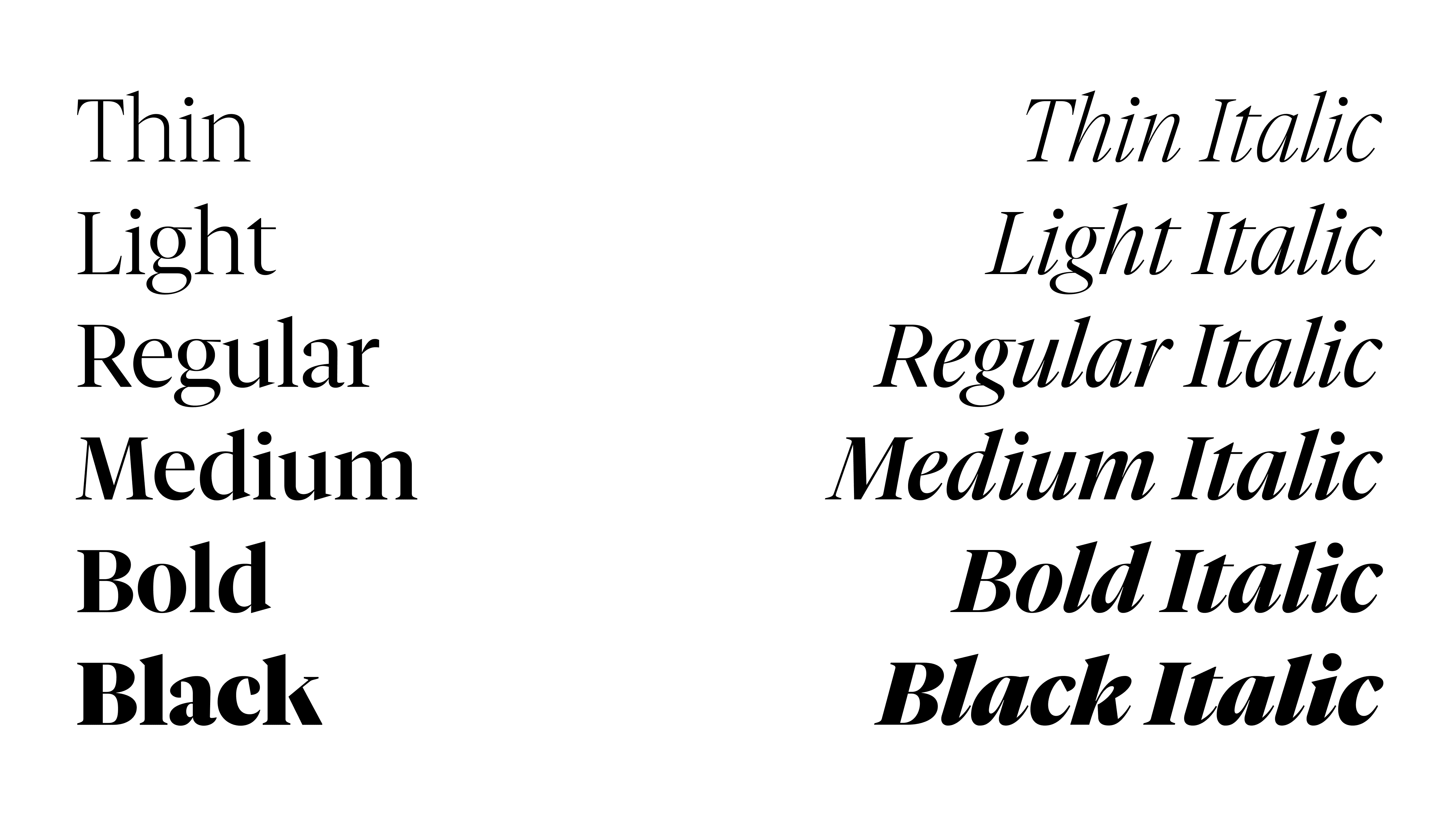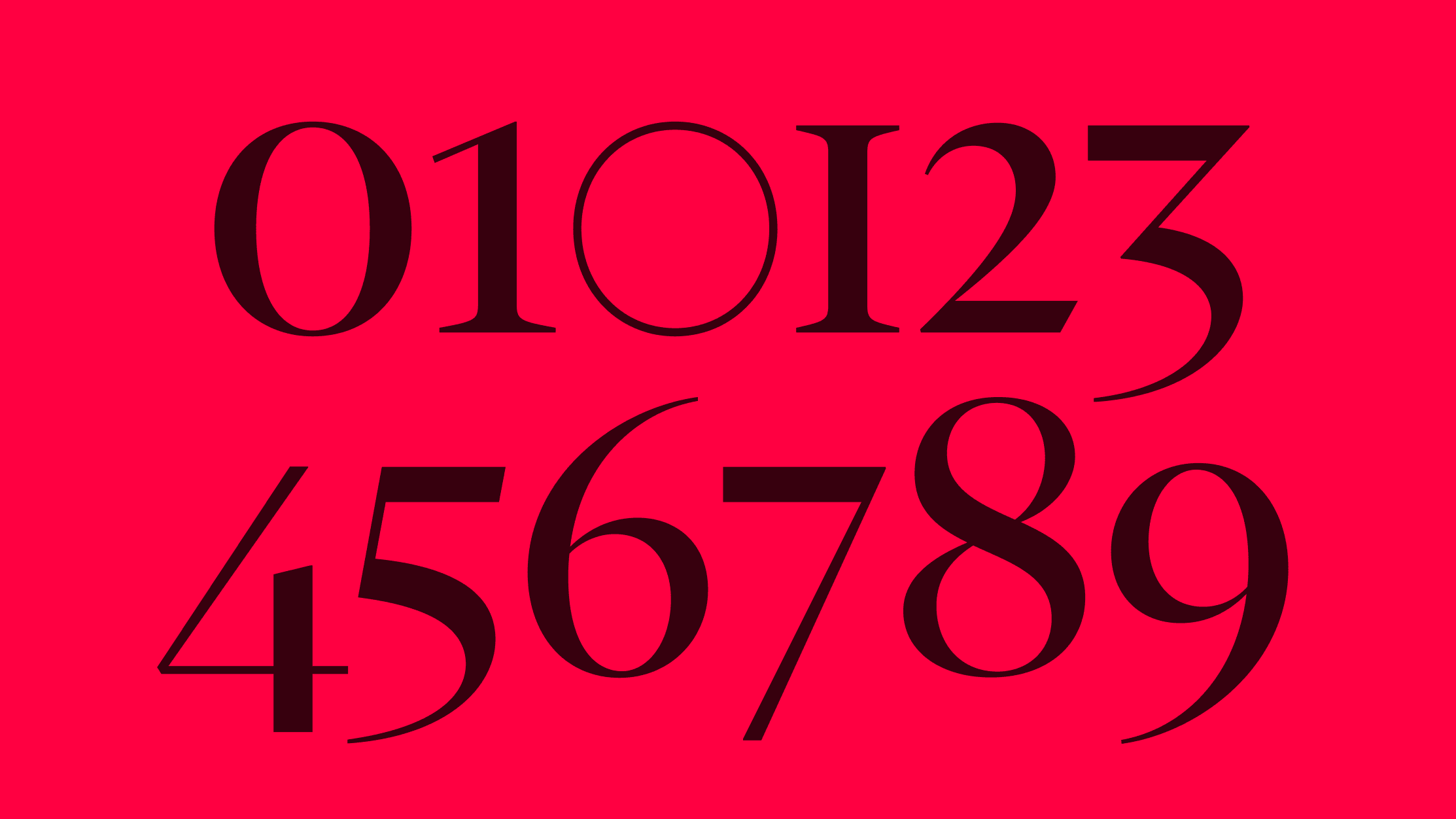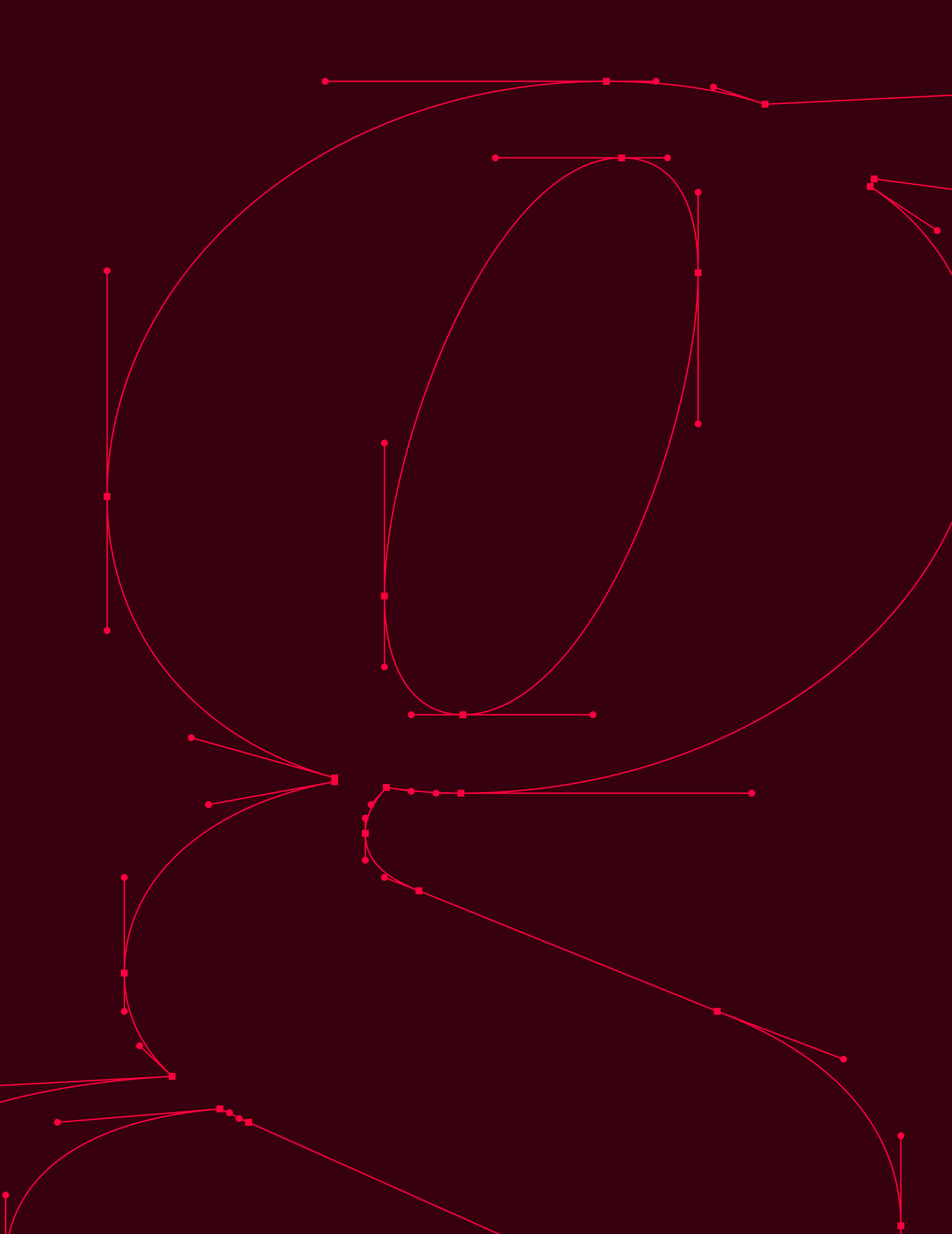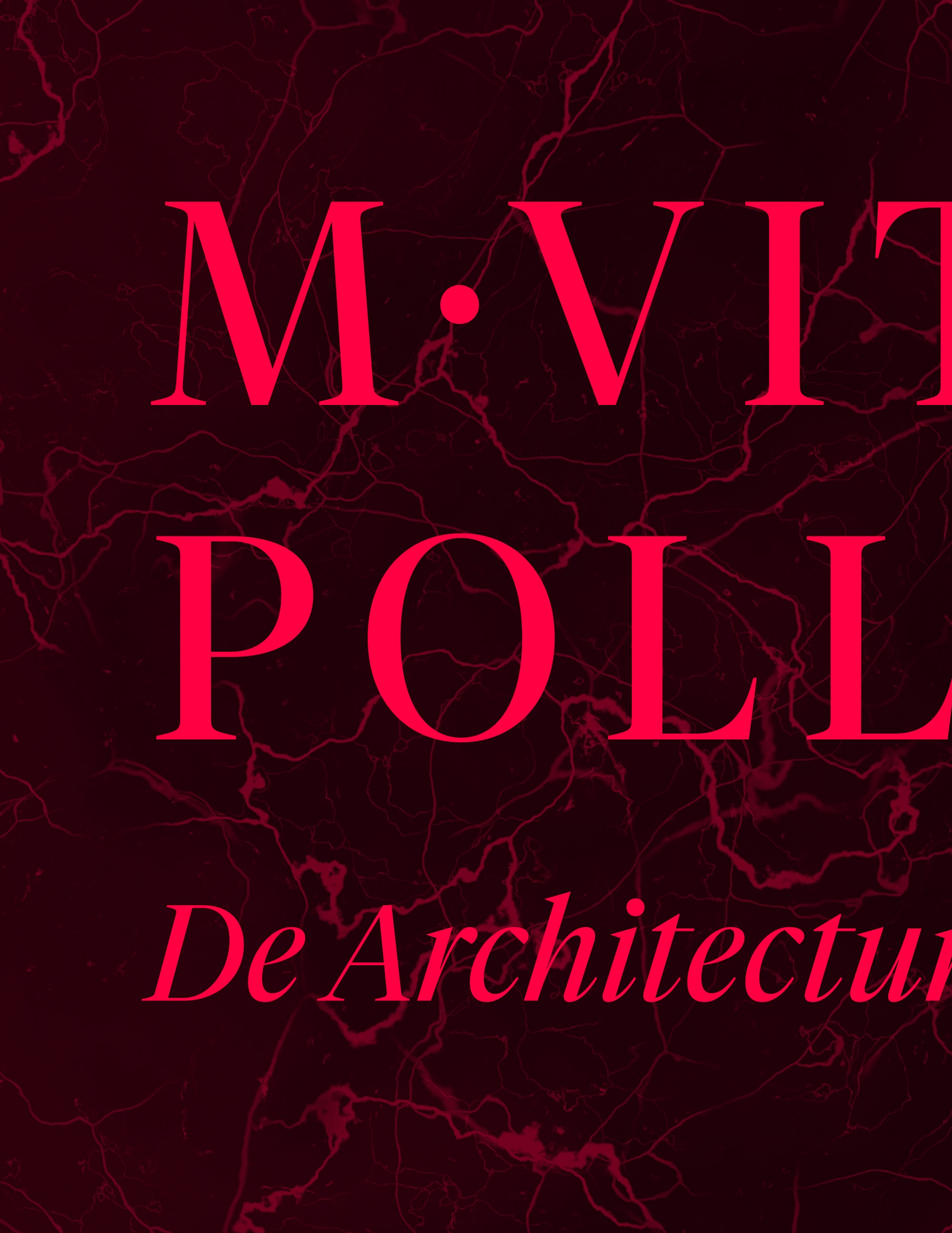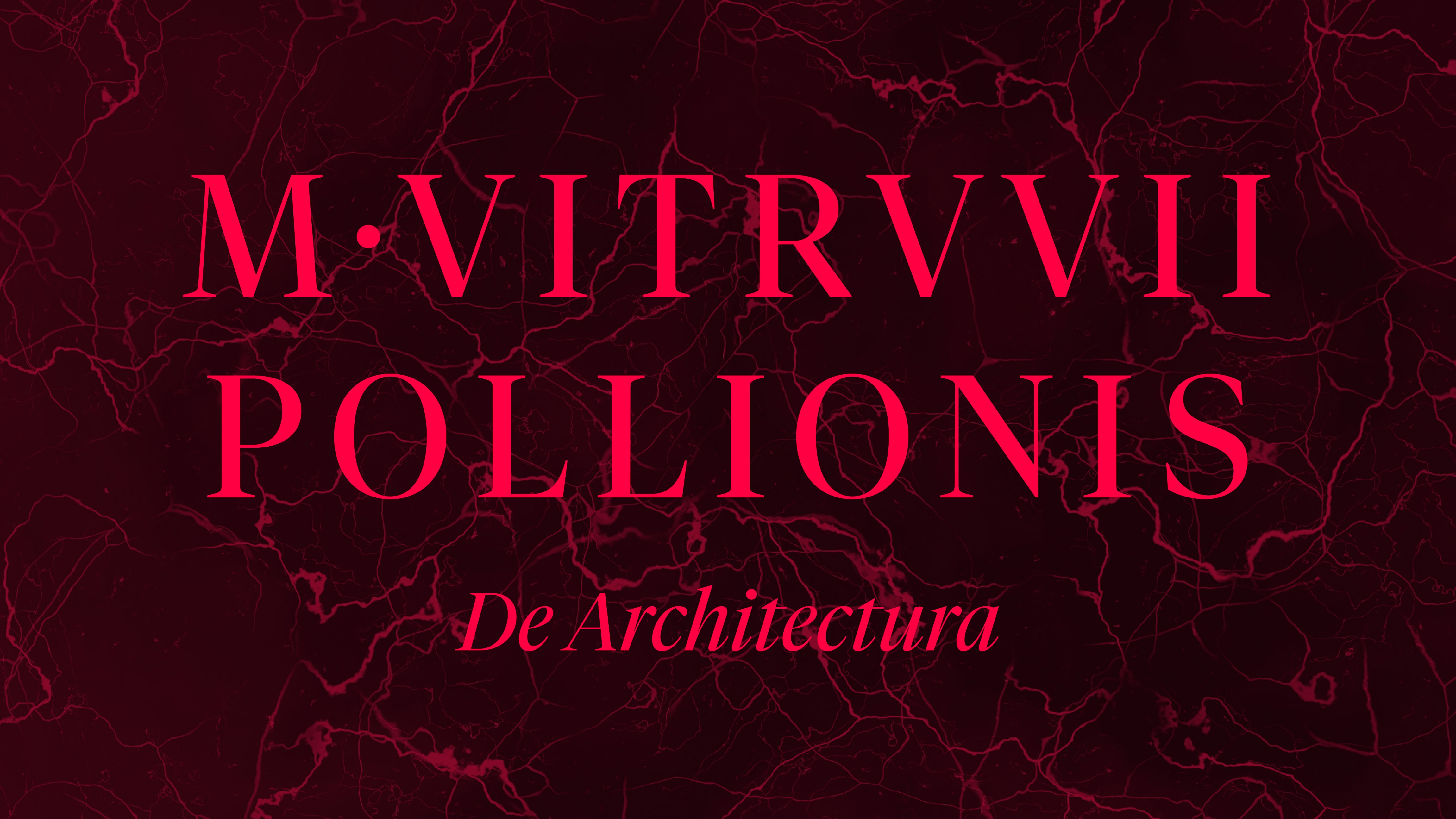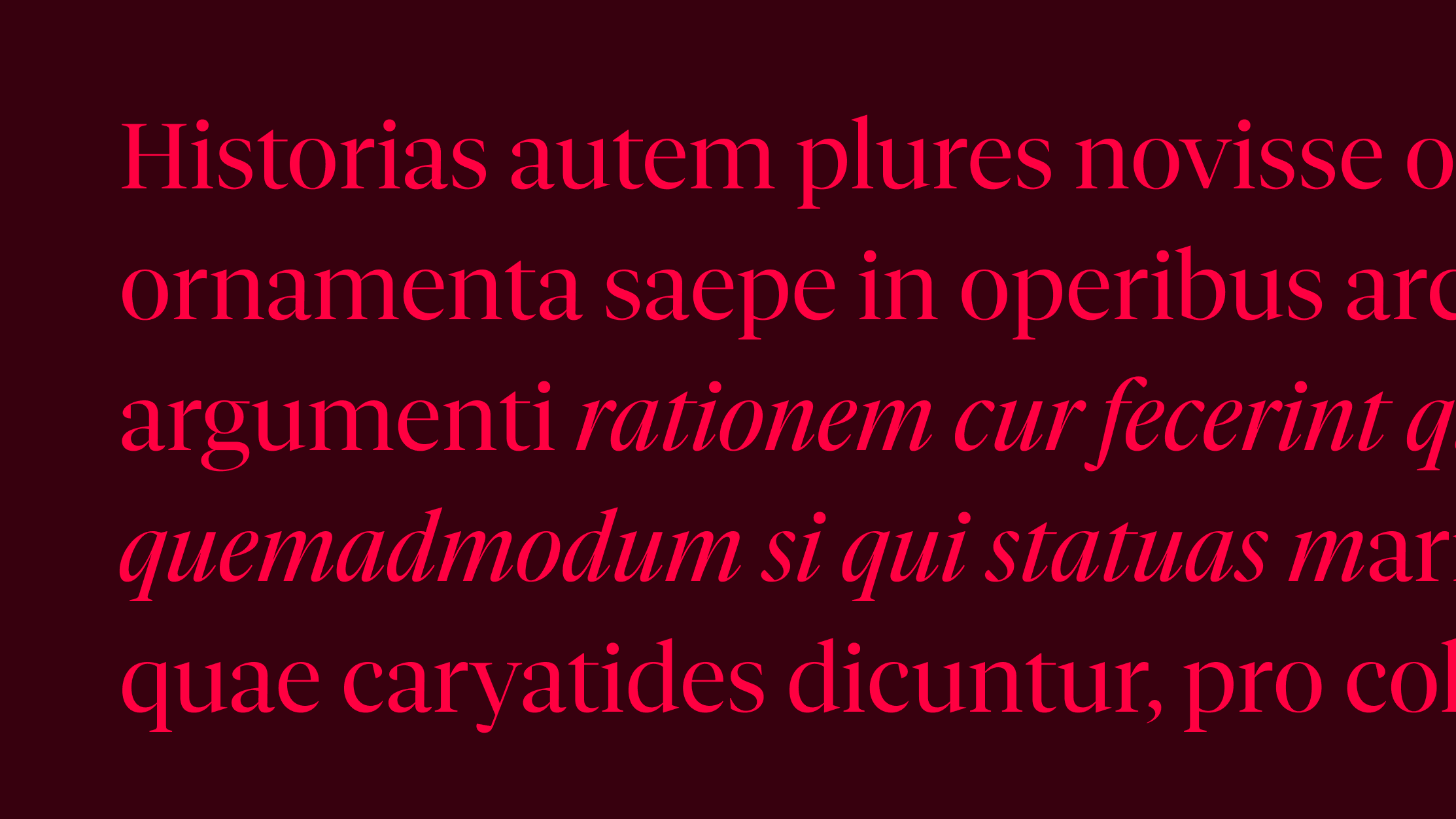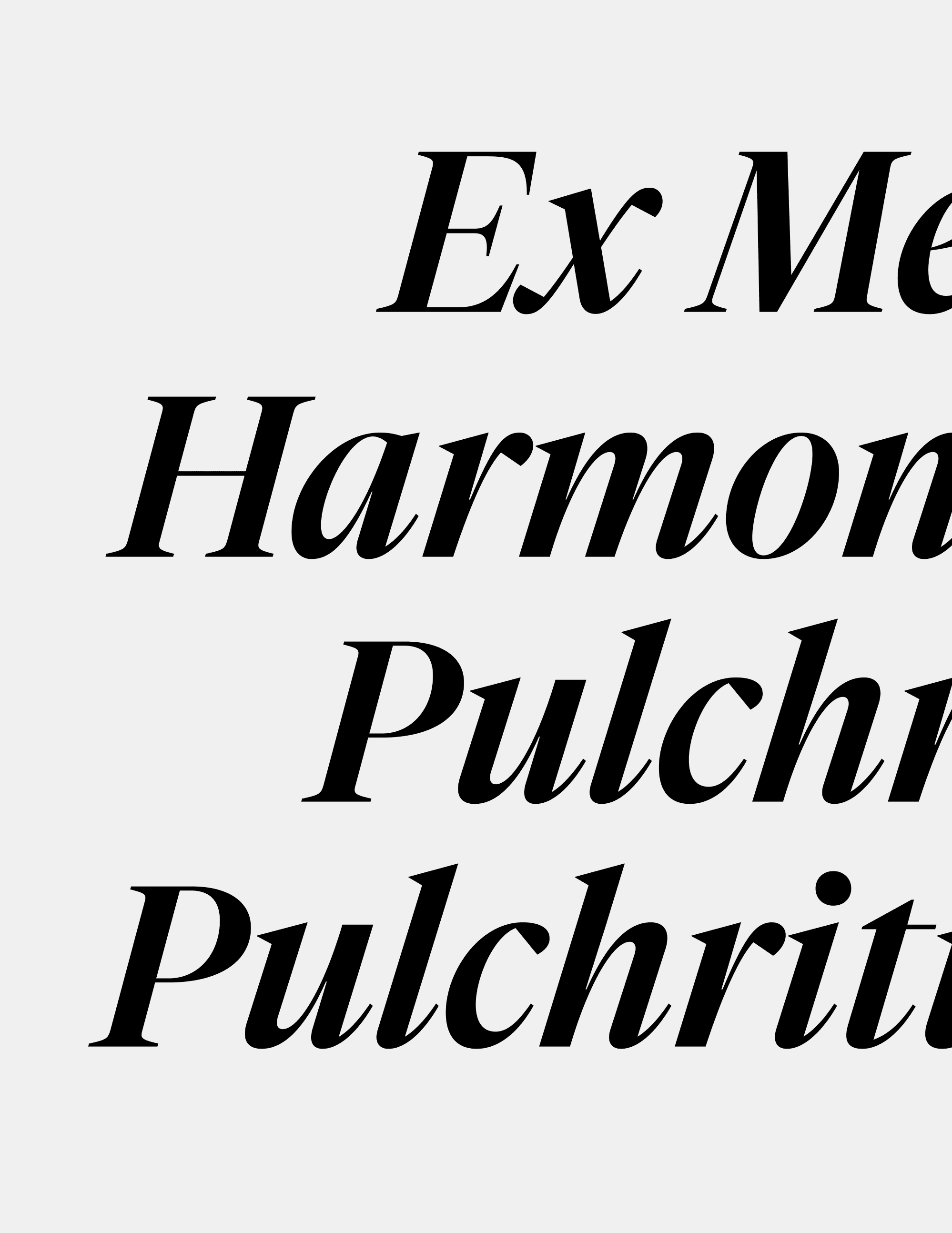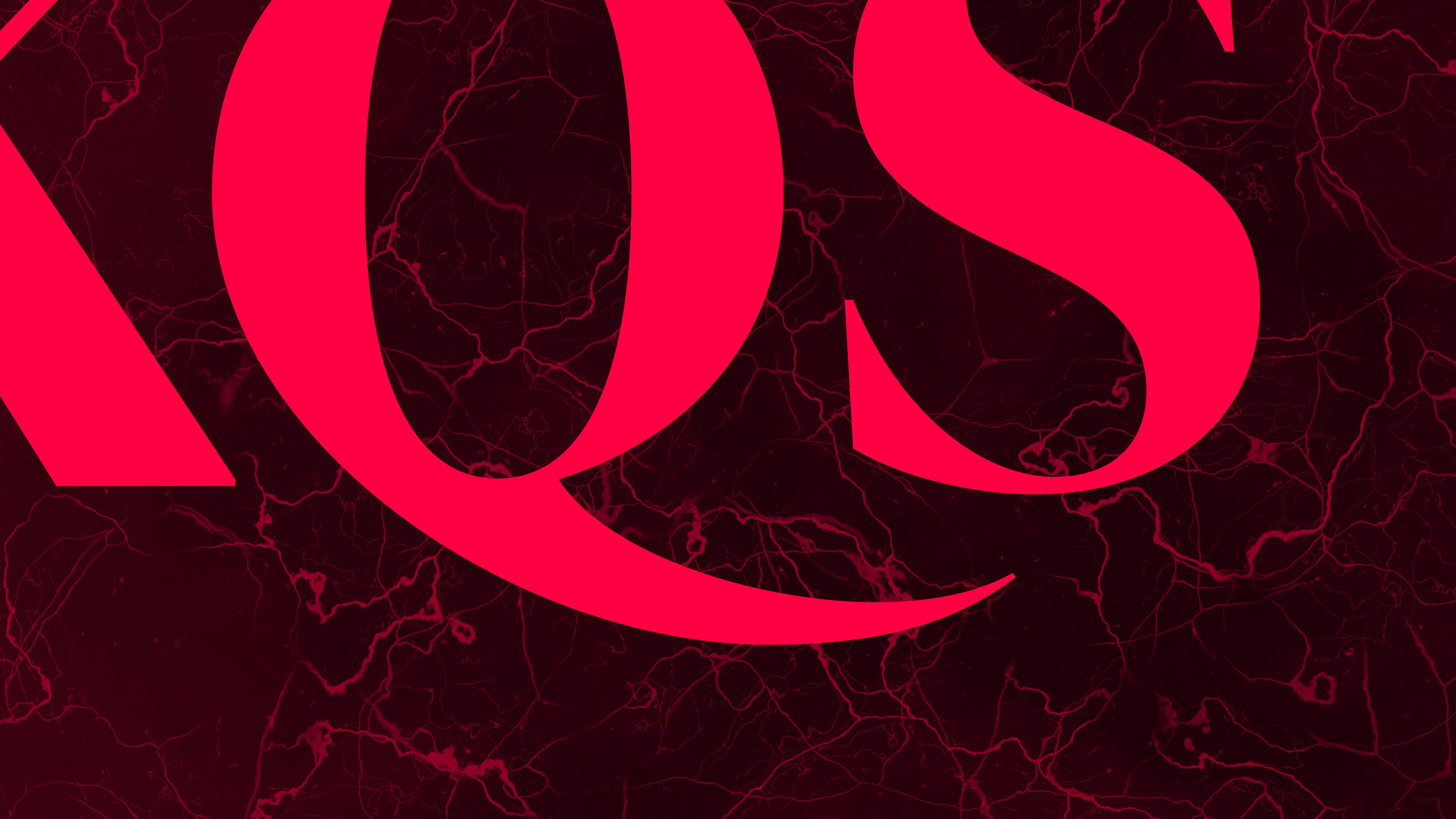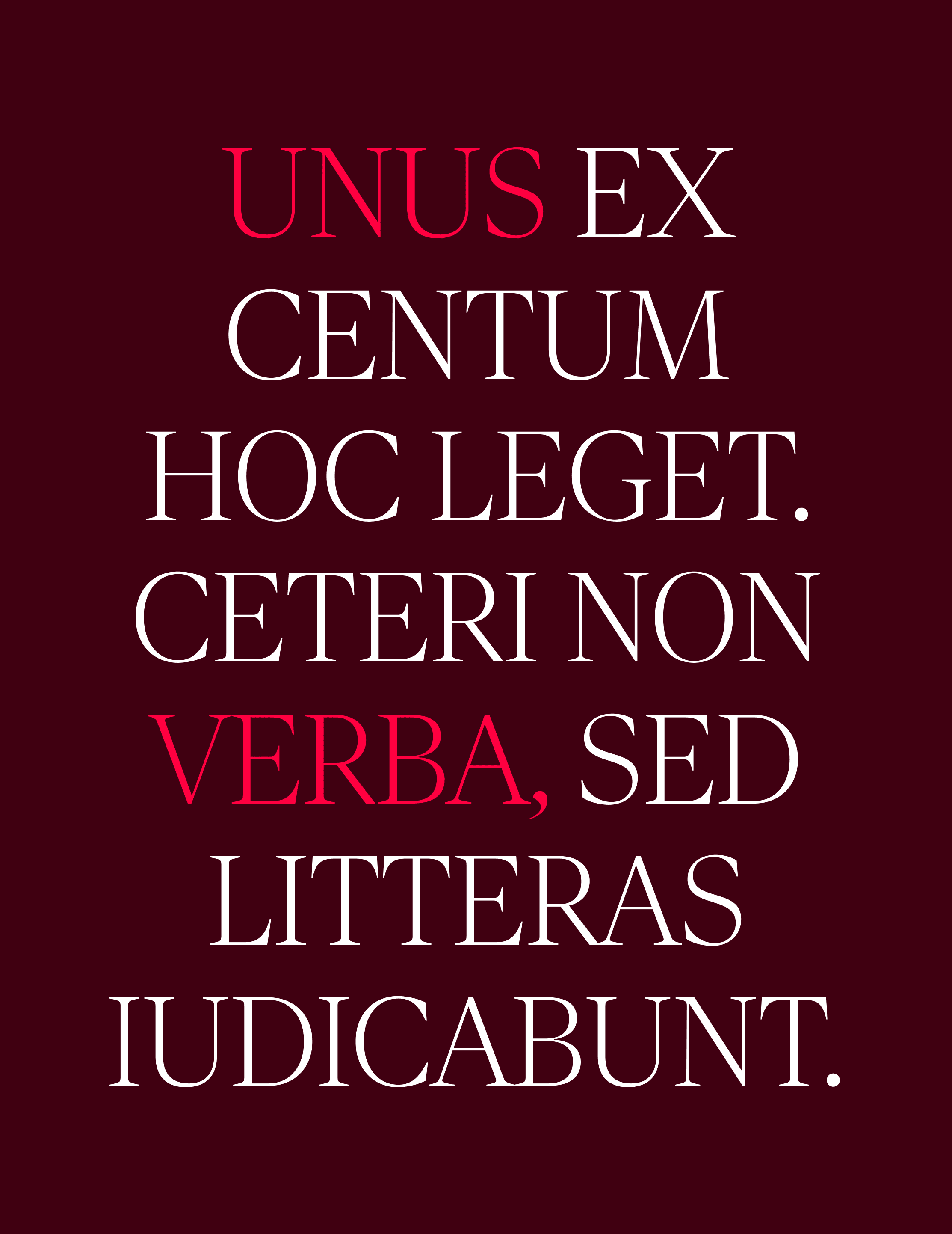
Vitruv Display is a Renaissance-inspired serif designed for headlines and large-scale typography. Developed with finer details, tighter spacing, and sharper contrast, it is complemented by Vitruv Headline and Vitruv Text, extending the design across a range of optical sizes.